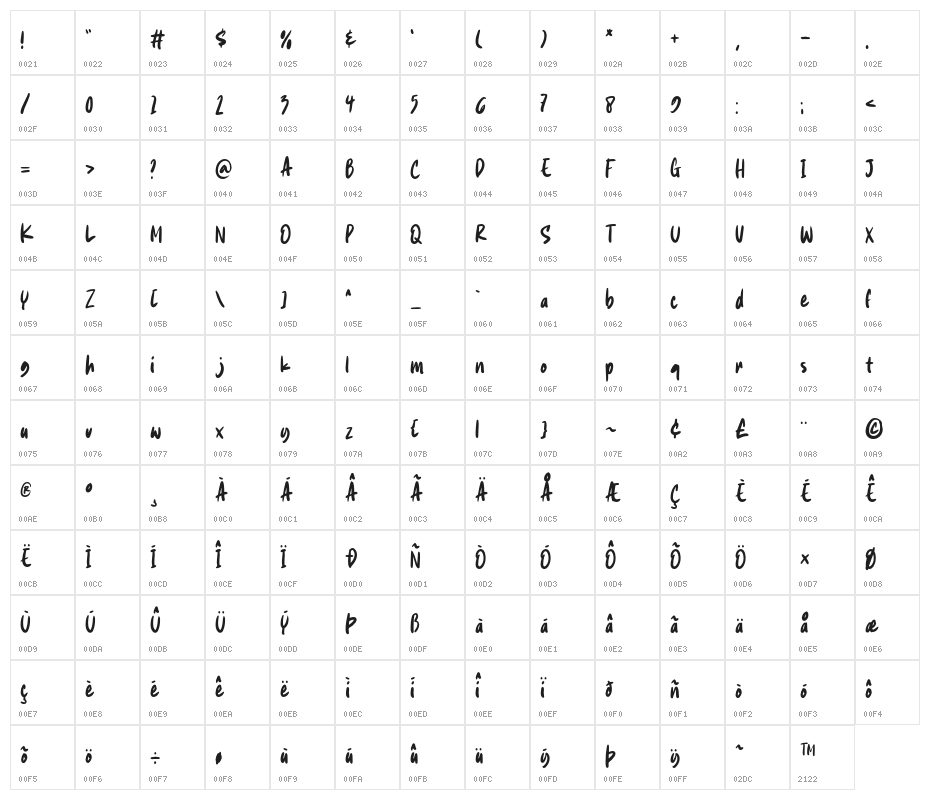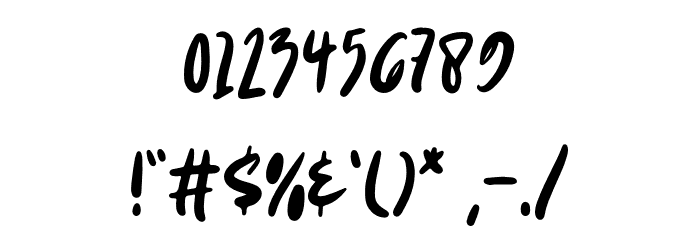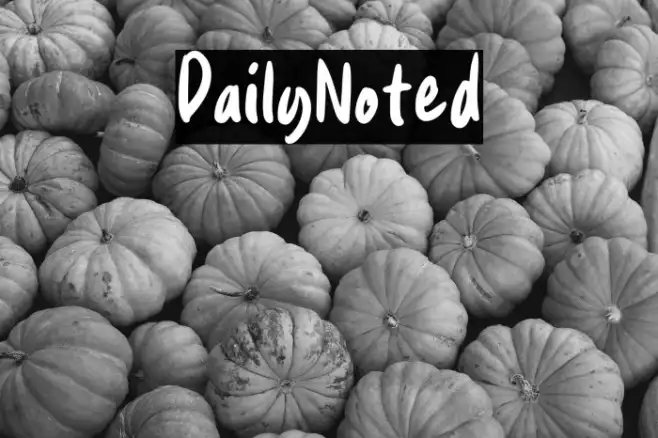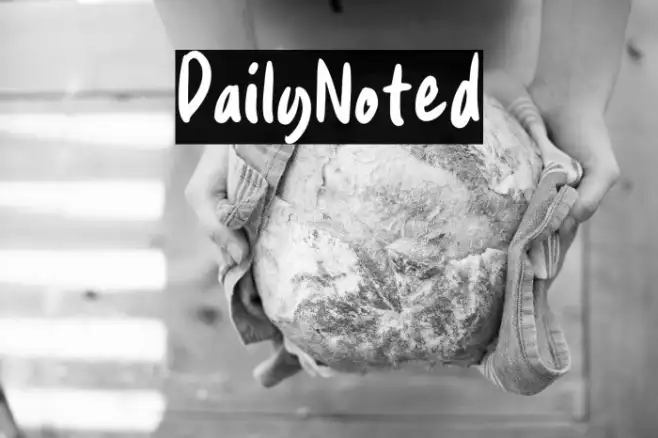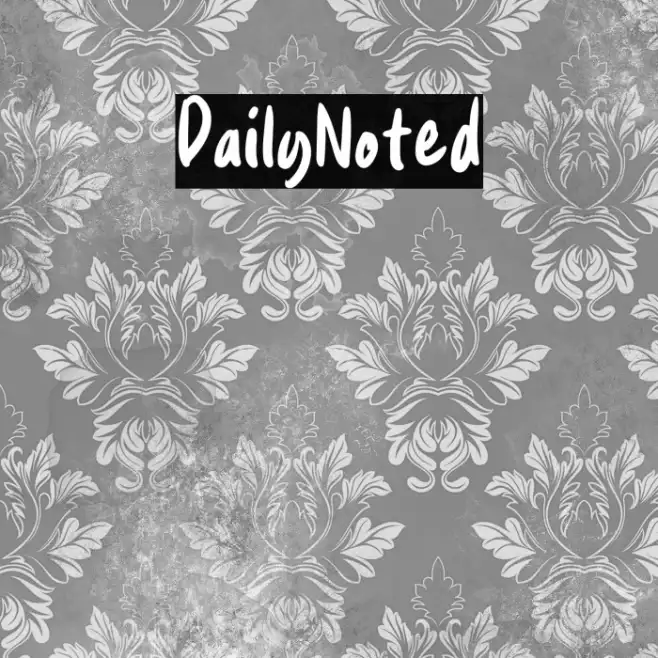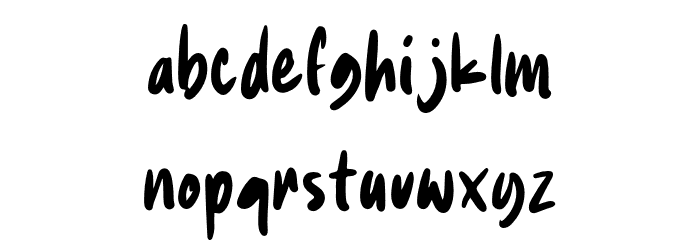
DailyNoted Font
DailyNoted Description
This font exudes a casual and friendly vibe with its handwritten style. The letters are slightly slanted, giving it a dynamic and lively appearance. The strokes are bold and consistent, providing a strong presence on the page. The characters are well-spaced, ensuring readability while maintaining a playful aesthetic. The uppercase letters are slightly taller than the lowercase, adding to the informal charm. The numbers and special characters are crafted with the same playful style, making them blend seamlessly with the alphabet. This font is perfect for projects that require a personal touch, such as invitations, greeting cards, or any creative design that seeks to convey warmth and approachability.
| Proposed Projects | Ideal for invitations, greeting cards, personal branding, and creative projects. |